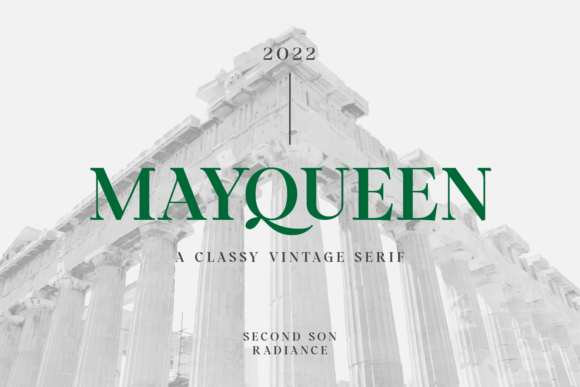
Step into a world of elegance and sophistication with Mayqueen Font, the ultimate serif font for your creative endeavors. Whether you're crafting a stunning business card, designing an editorial masterpiece, or creating captivating branding for your business, Mayqueen Font is your perfect companion.
Unleash the power of Mayqueen Font and transport yourself to an era of charm and grace. Its classic, vintage style adds a touch of luxury and refinement to any project, making it the ideal choice for those seeking a timeless and sophisticated aesthetic. From fashion magazines to museum branding, Mayqueen Font exudes an aura of elegance that captivates and inspires.
Imagine your designs adorned with the beauty of Mayqueen Font. Its graceful curves and delicate serifs create a sense of balance and harmony, drawing the eye to every detail. Whether you're creating a cosmetics brand or designing a wedding invitation, Mayqueen Font adds an air of sophistication that elevates your work beyond the ordinary.
With Mayqueen Font, you'll have the power to create designs that speak to the heart and leave a lasting impression. Its timeless beauty and versatility make it the perfect choice for those seeking a font that exudes class and elegance. Join the ranks of creative professionals who have discovered the magic of Mayqueen Font and experience the difference it can make in your designs.